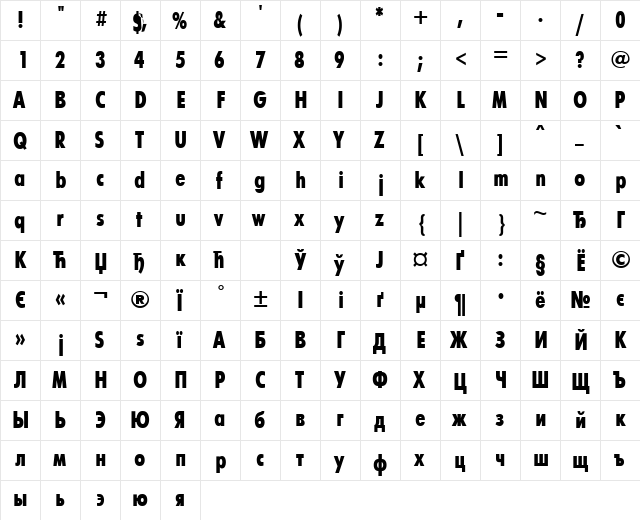
FuturisXCondC Normal Font Preview
FuturisXCondC Normal
Design Context for FuturisXCondC Typeface
FuturisXCondC has a distinctly futuristic character, with geometric precision and clean angles that feel at home in technology, gaming, and sci-fi contexts. Its narrow stance lets it pack a punch even in space-constrained designs.
Pro Tip: Try FuturisXCondC with generous letter-spacing in UI labels and navigation — the geometric forms benefit from room to breathe.